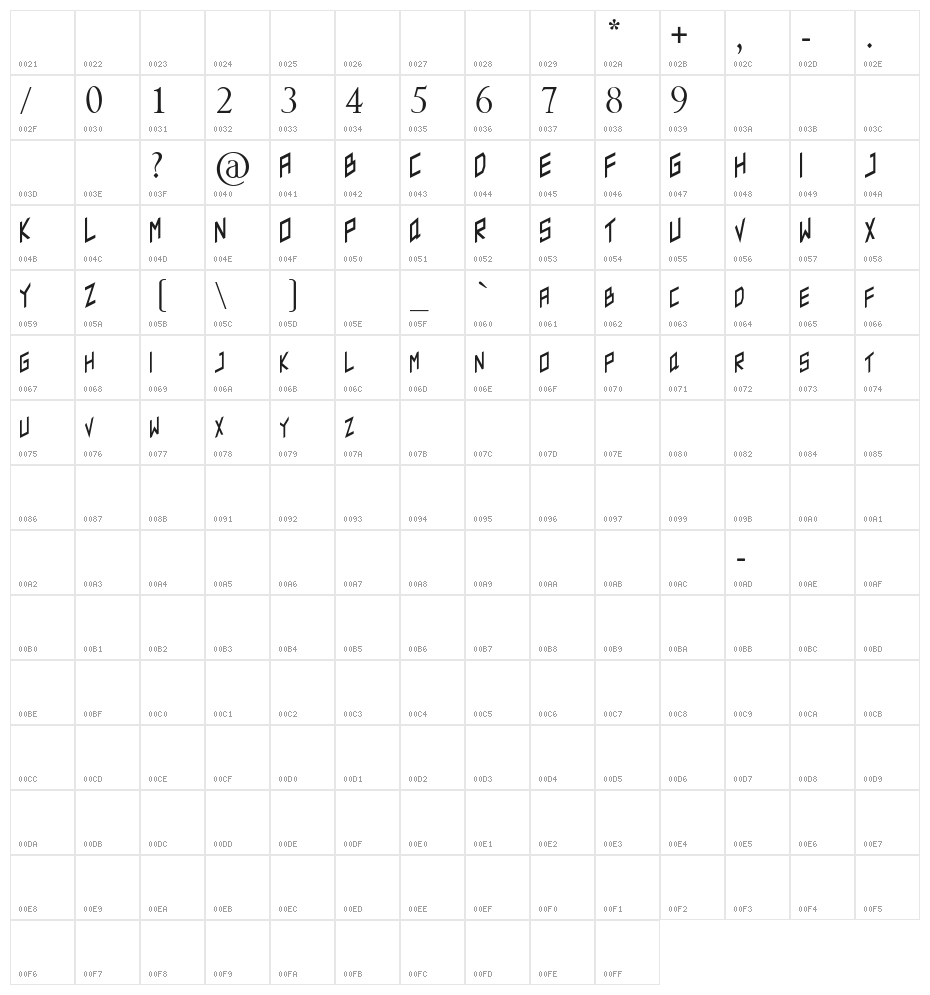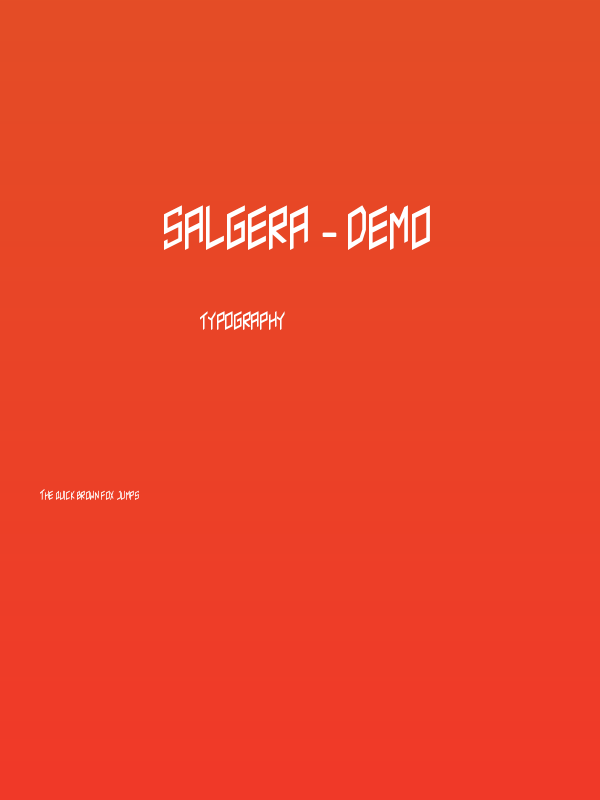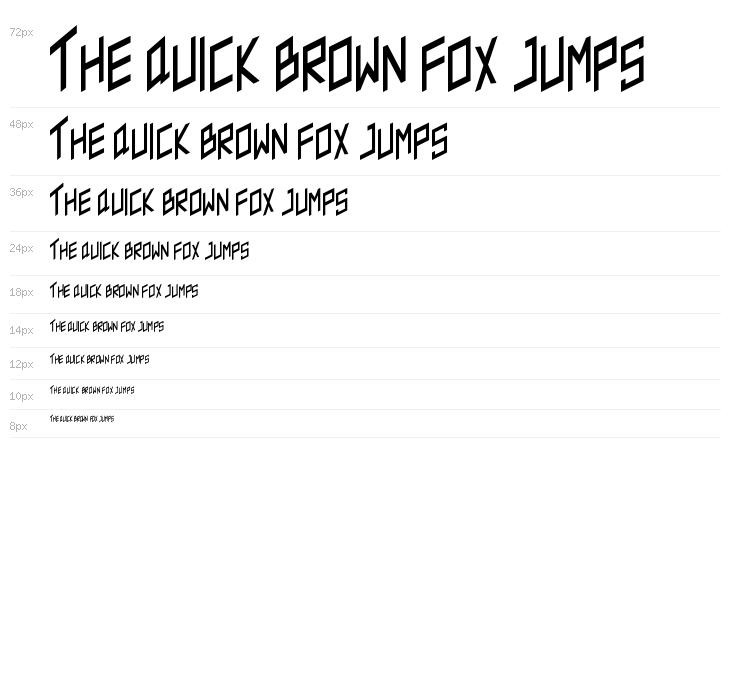
Salgera - Demo Font
Salgera - Demo Description
This font features a bold, angular design with a distinct geometric flair. The uppercase letters exhibit sharp, pointed edges and a slightly condensed form, giving them a dynamic and energetic appearance. The lowercase letters maintain this angular style, ensuring consistency throughout the typeface. The numerals are more rounded, providing a contrast to the sharpness of the letters, yet they still retain a modern and sleek look. Special characters are designed to match the overall aesthetic, with clean lines and a contemporary feel. This font is ideal for projects that require a bold and modern statement, such as branding, posters, or digital media.